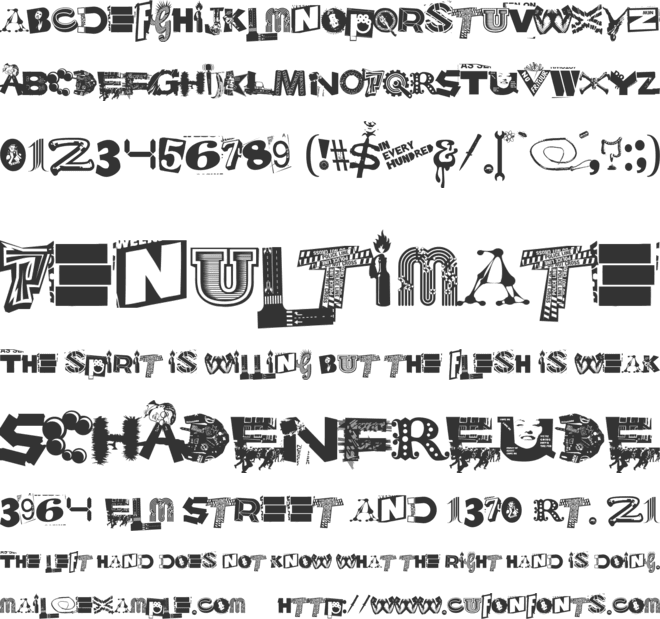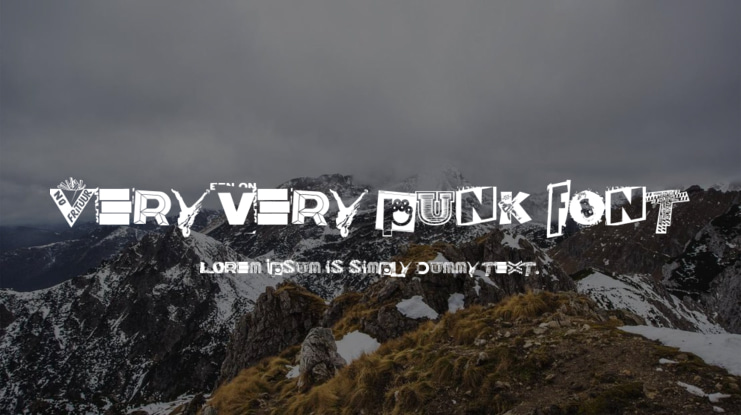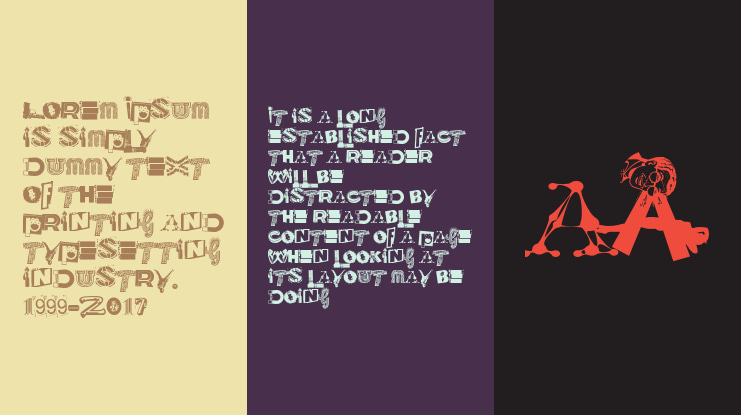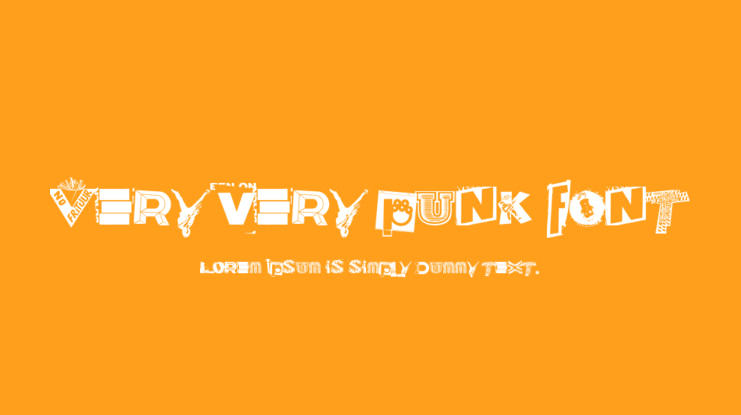
I 'became' punk at the end of 1976 when I was a 16 year old kid with lots of pimples and problems. I was convinced I was genuinely changing the world for the better. Most of the other punks I met were older, but always friendly and full of energy. So for the following decades, my punk friends became a substantial part of my life, and they are to this day. At 65 I still play guitar in a punkband with friends from that early punk time. (Check us out on all streaming platforms -> De Fuckups)
I wanted to make a font that had punk elements and aesthetics, but also the same obnoxious traits that come with the subculture. So you never know happens. Your words can get twisted, your cursor may get lost :)
In the end, I think I made a pretty good portrait of punk in the shape of a font.
The font comes with a little book (it has all the ligatures) explaining what all the parts and samples are .
Like me, the font itself is pretty obese. It has almost 600 characters weighing in at about 3.74 Mb; most of them are pretty heavy on the graphic side. I've tried to bring some extra chaos by coding and making ridiculous ligatures that you're just going to have to find. Please tell me what you think! I had a lot of fun making this font.